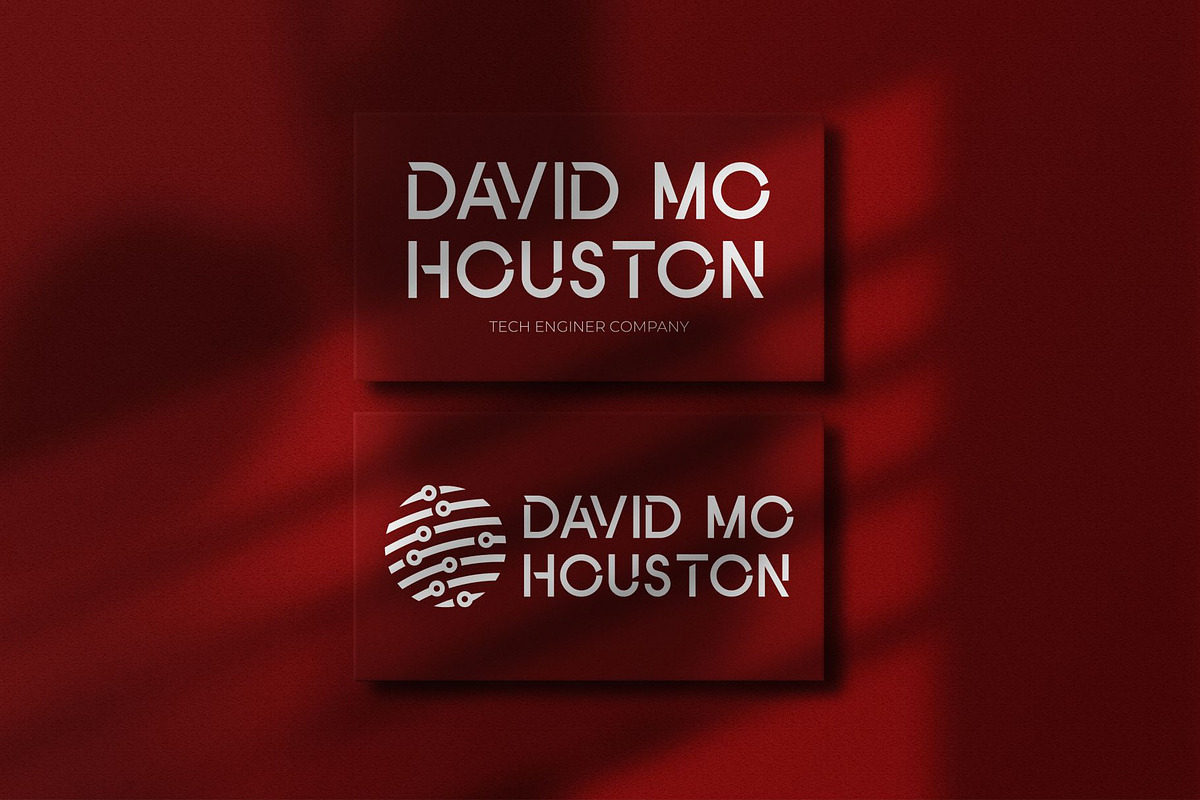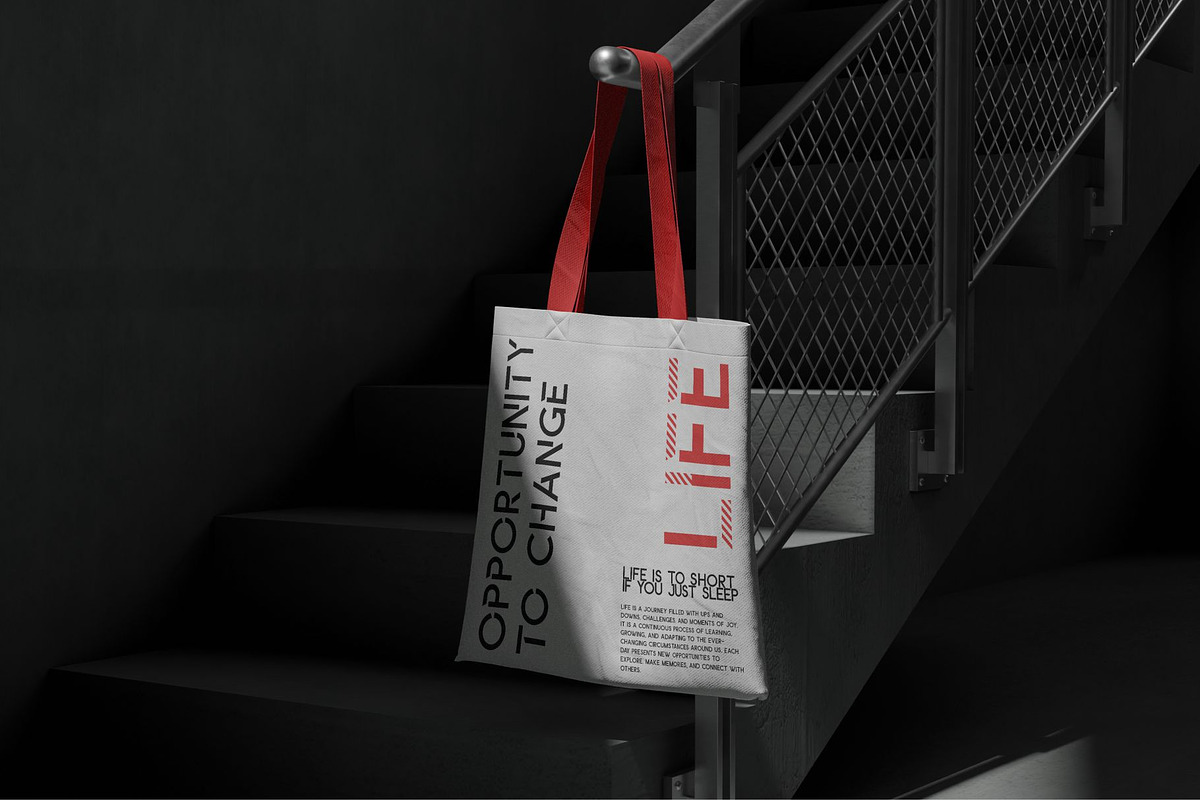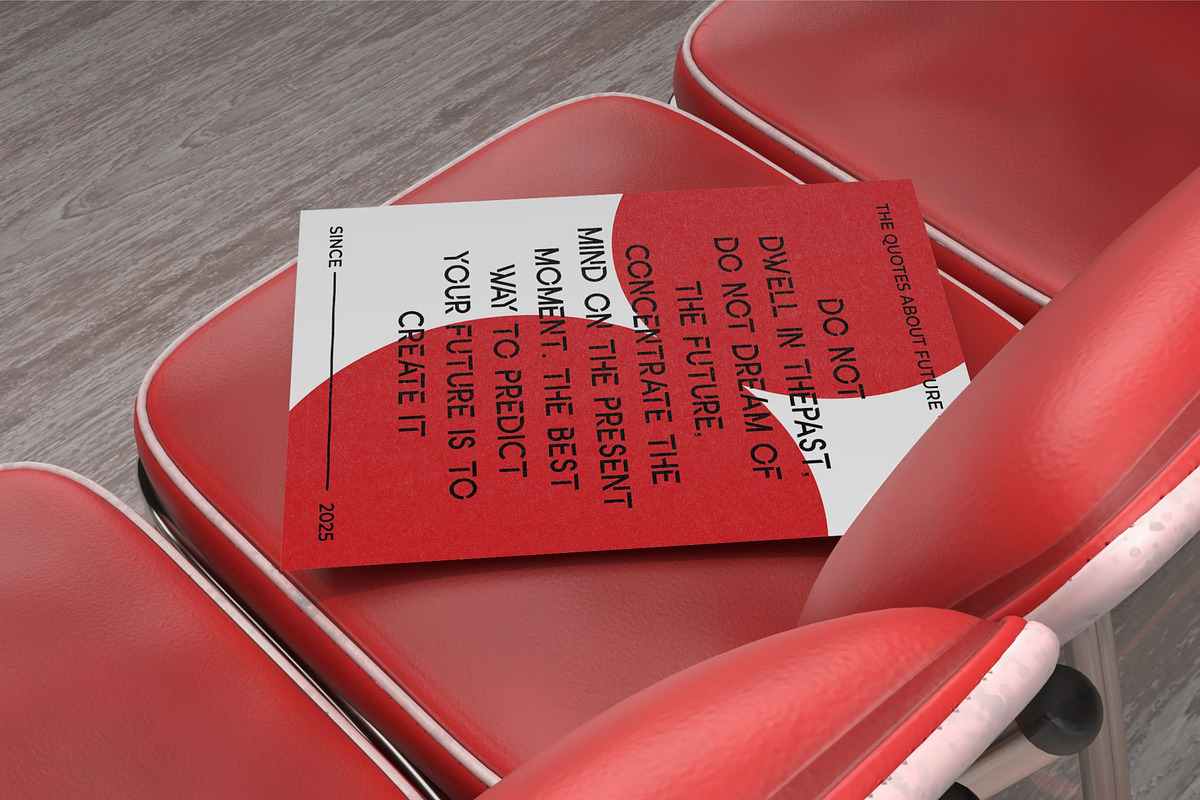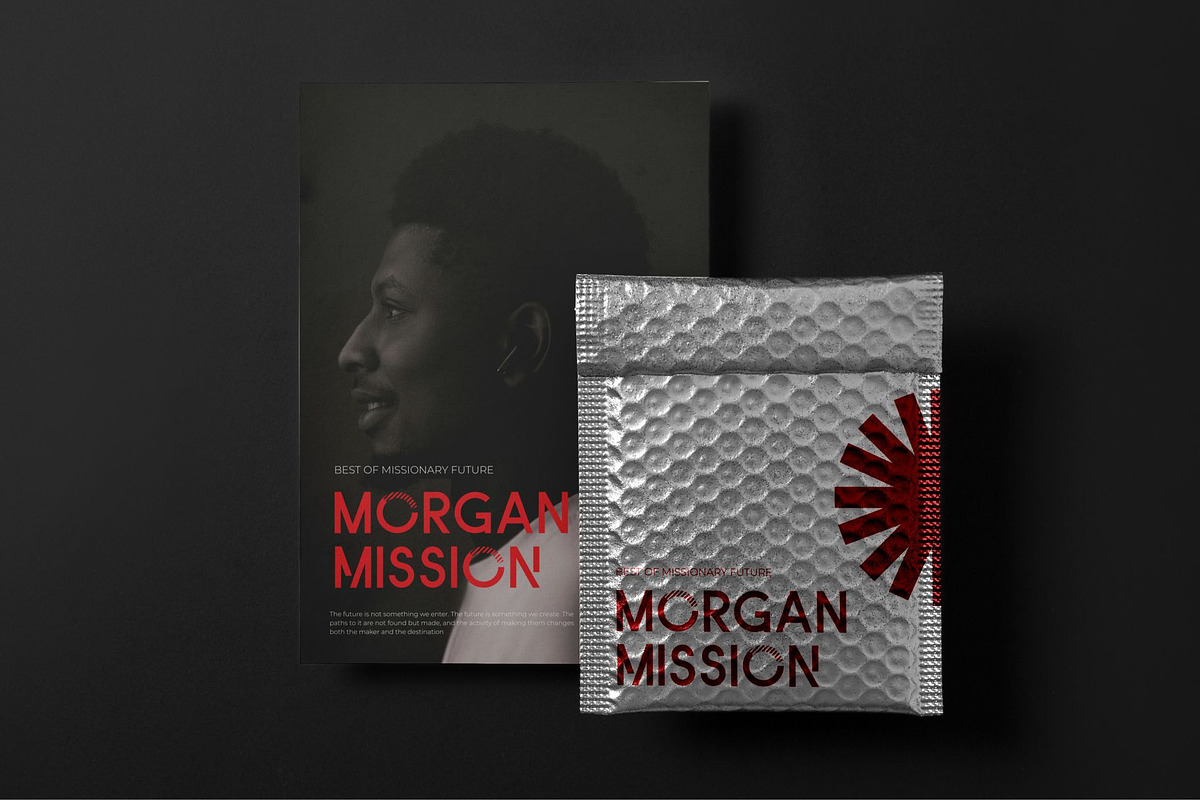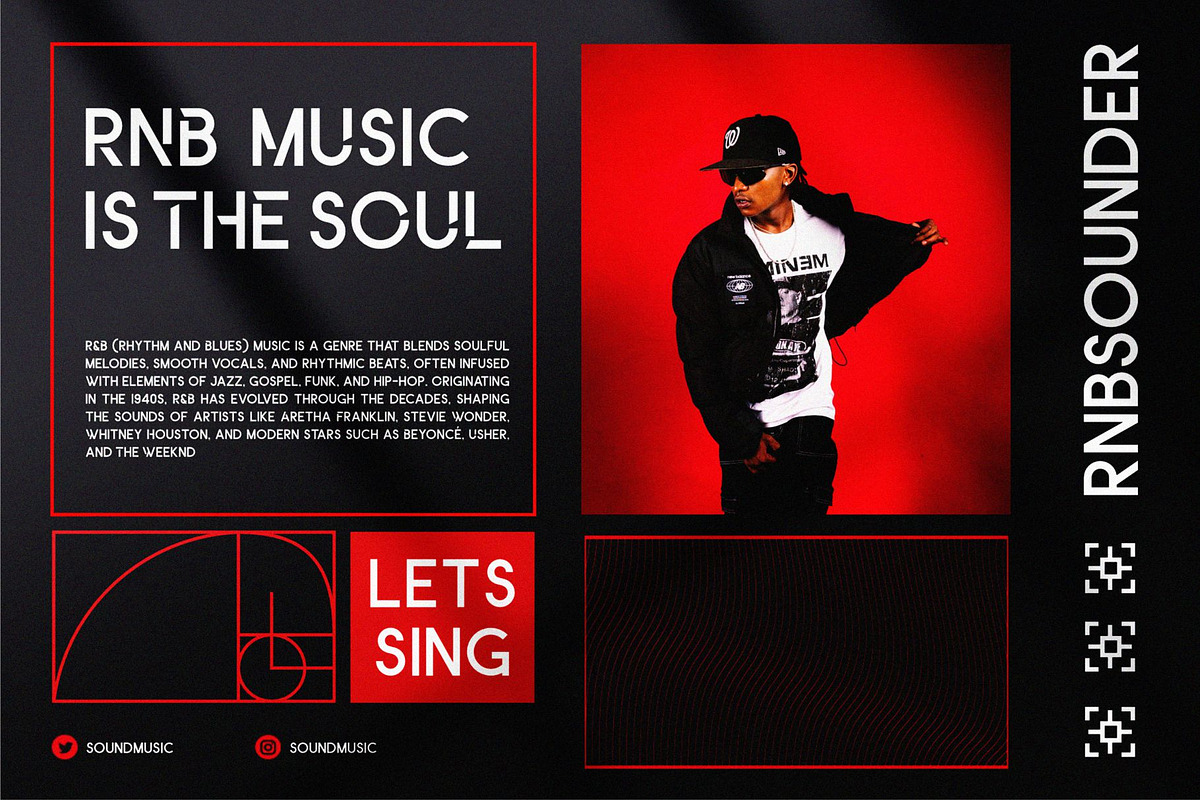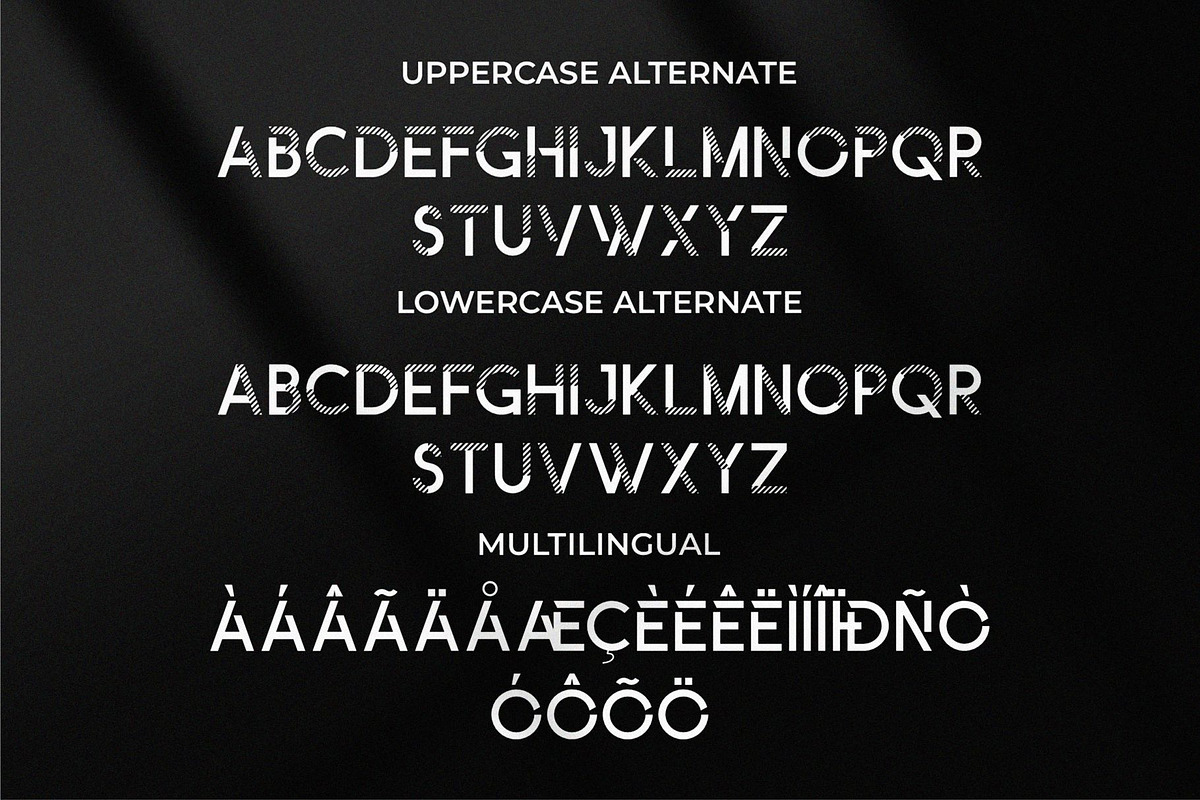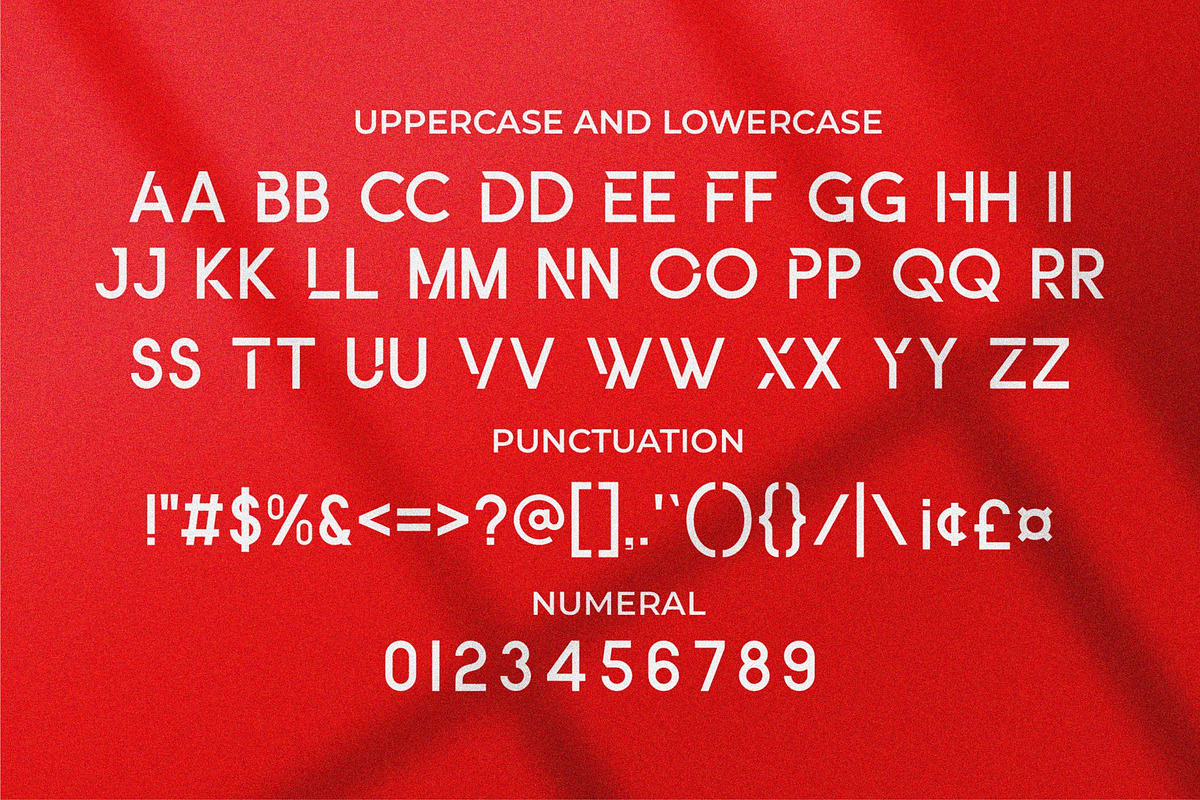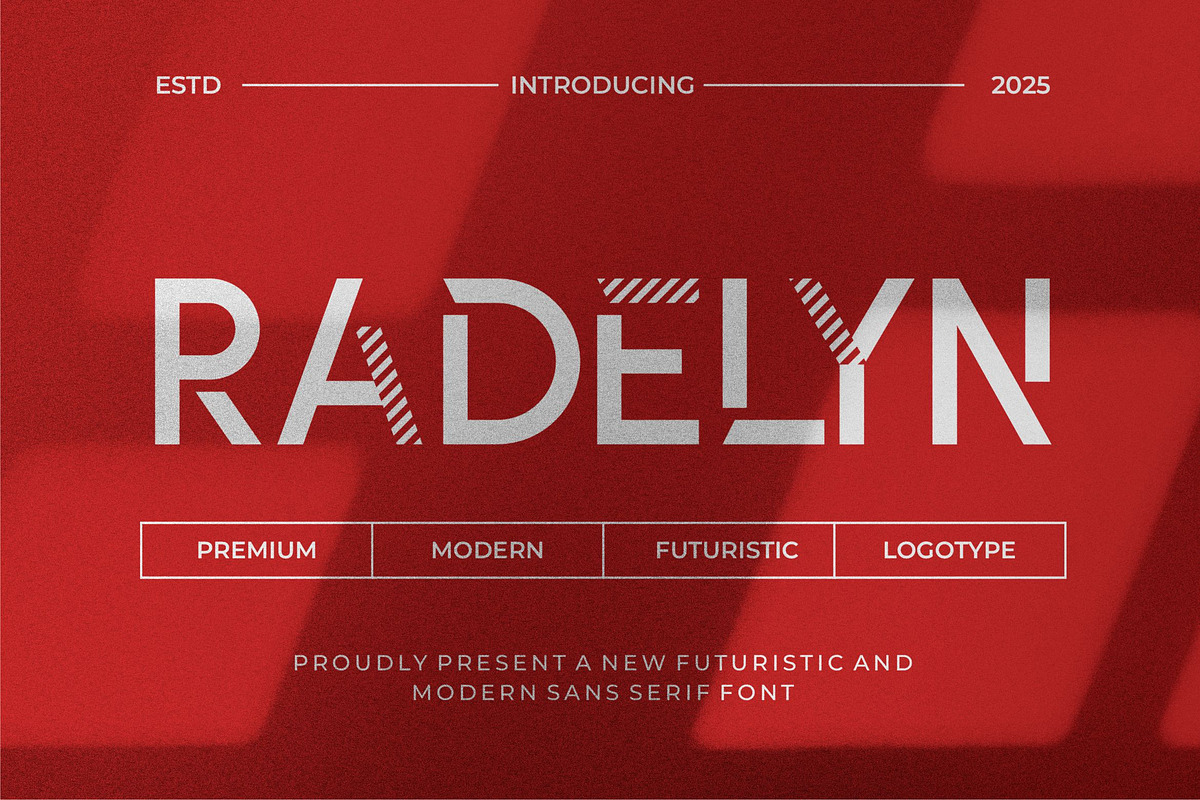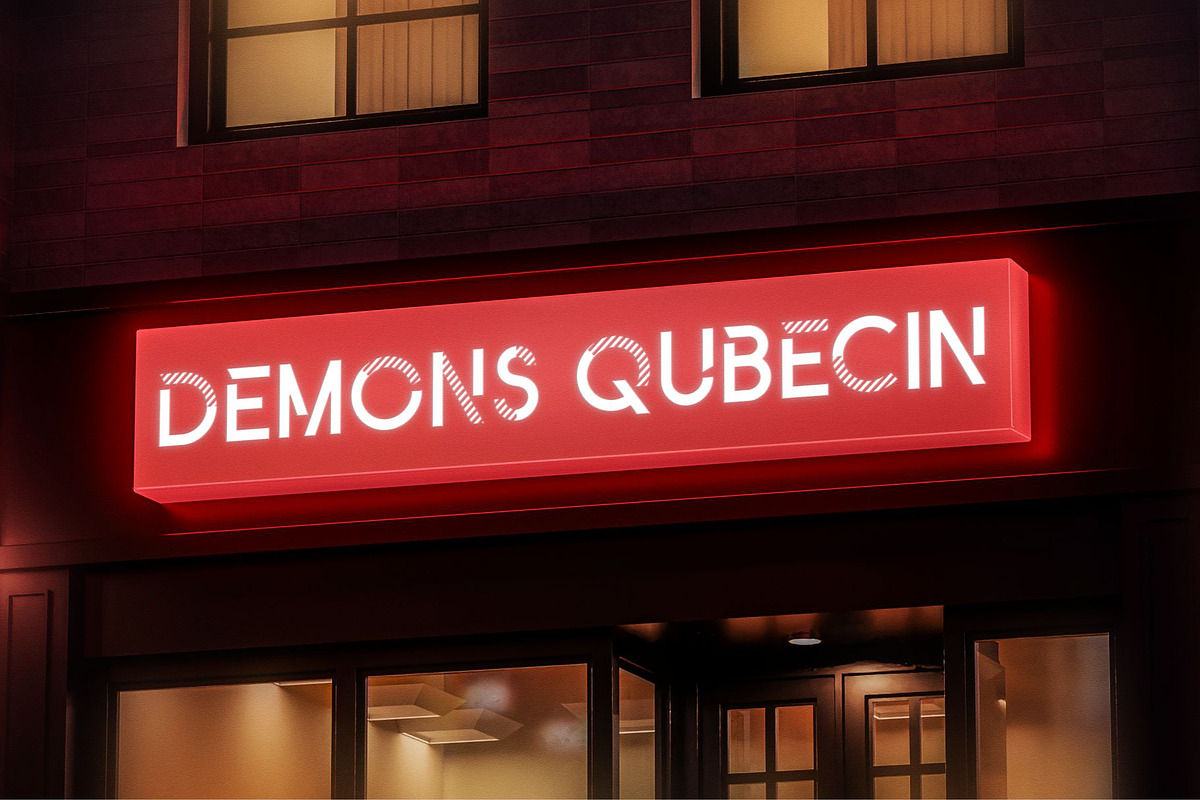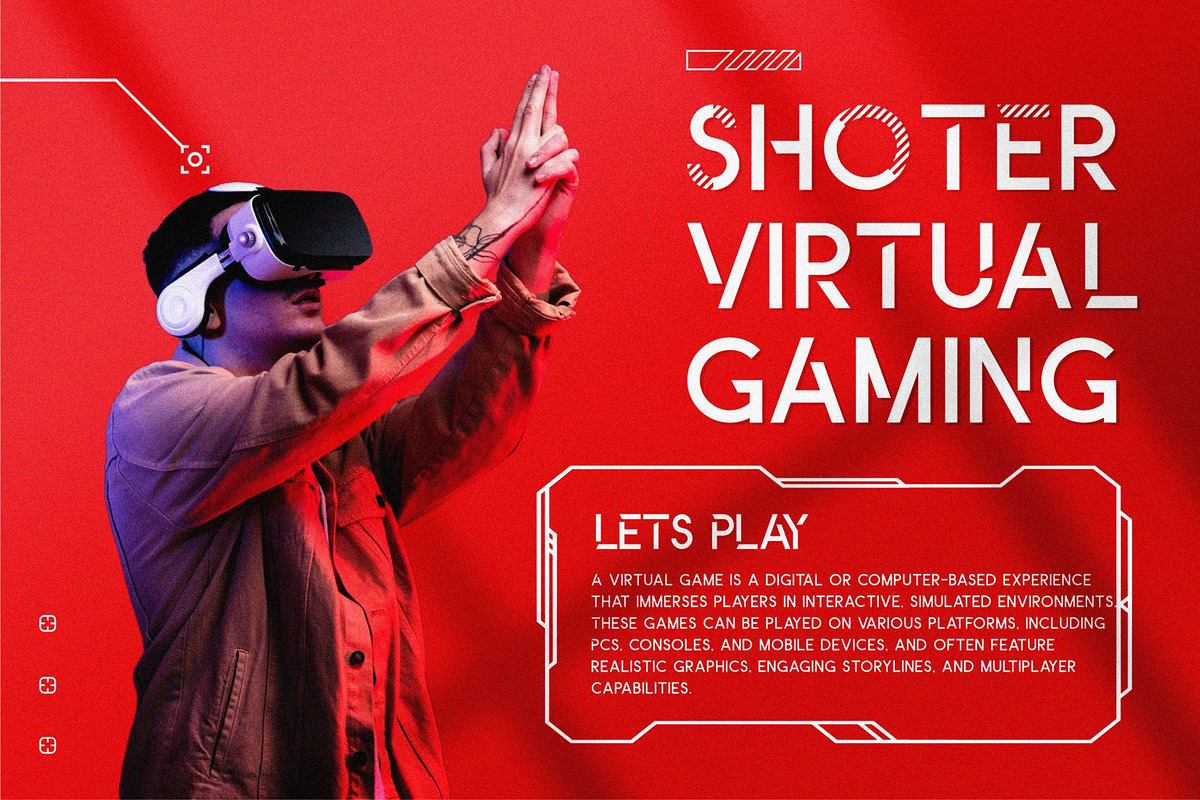
Radelyn || Modern Allkaps Sans Serif
Radelyn Serif is a elegant and classy allcaps font type for all branding and logo designs. This elegant and classy Serif font has a beautiful character. This font is suitable for invitation card designs, cool logos, movie titles, movie names, business cards, book titles, brand names, and various other designs. Radelyn is a smooth serif font that exudes sophistication and the moment. Its stylish alterations and ligatures make this font a perfect partner for any project.